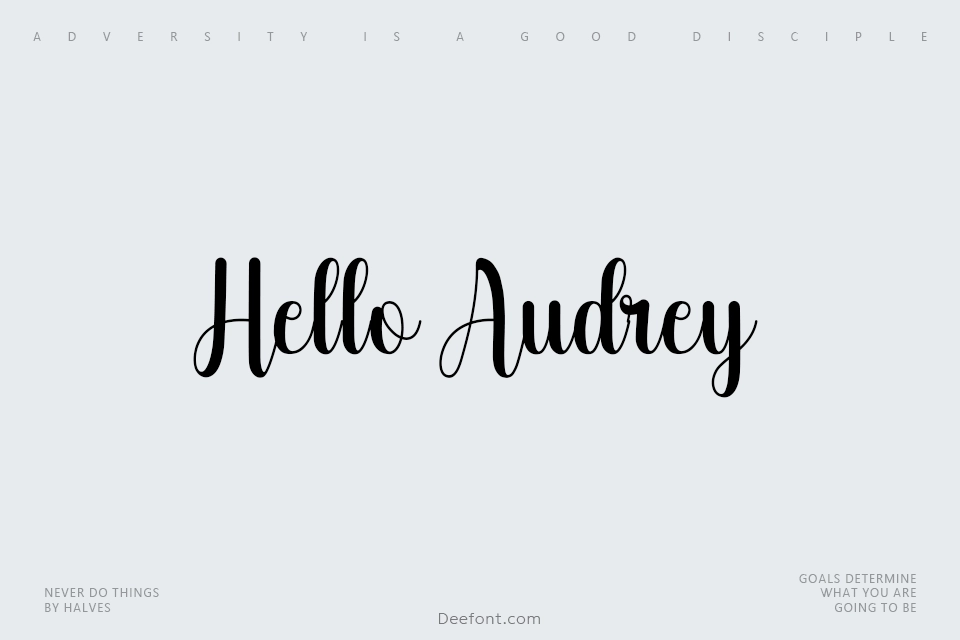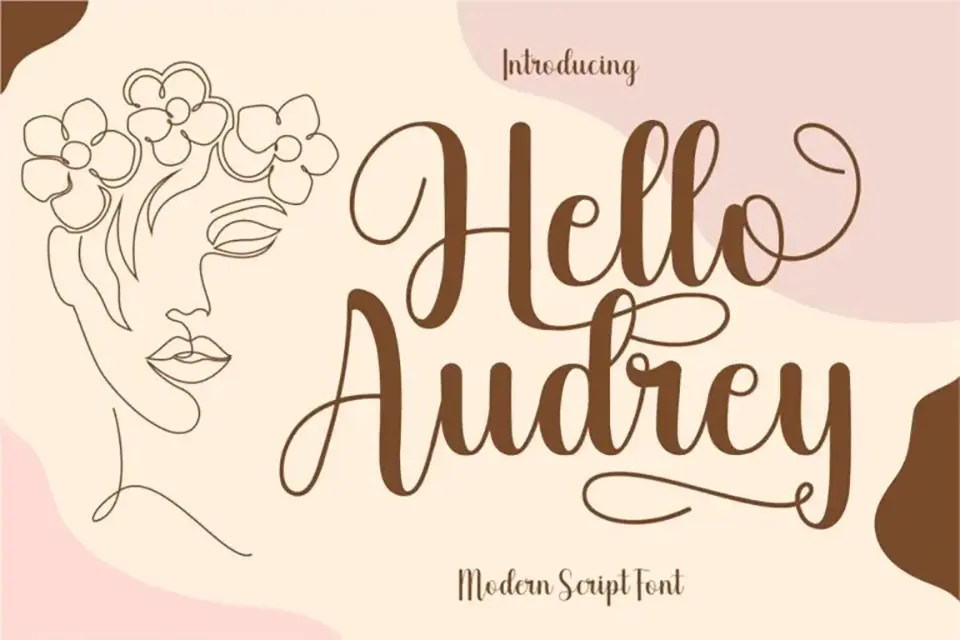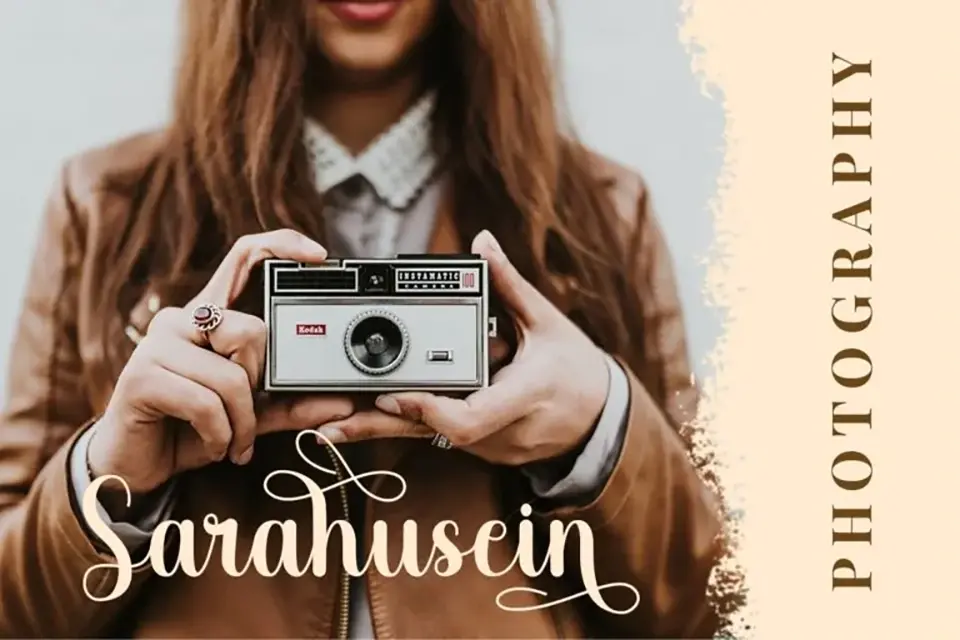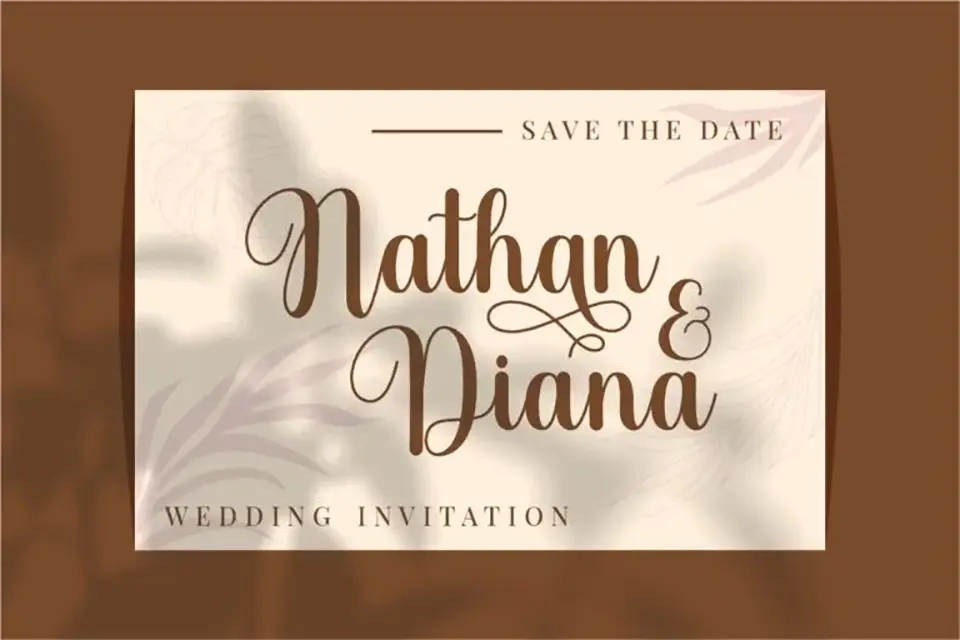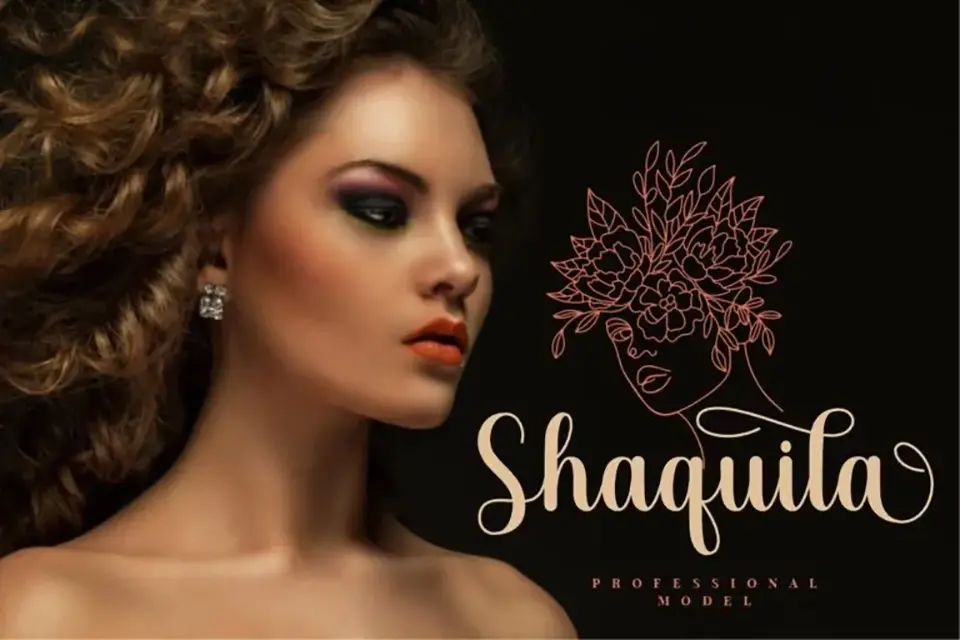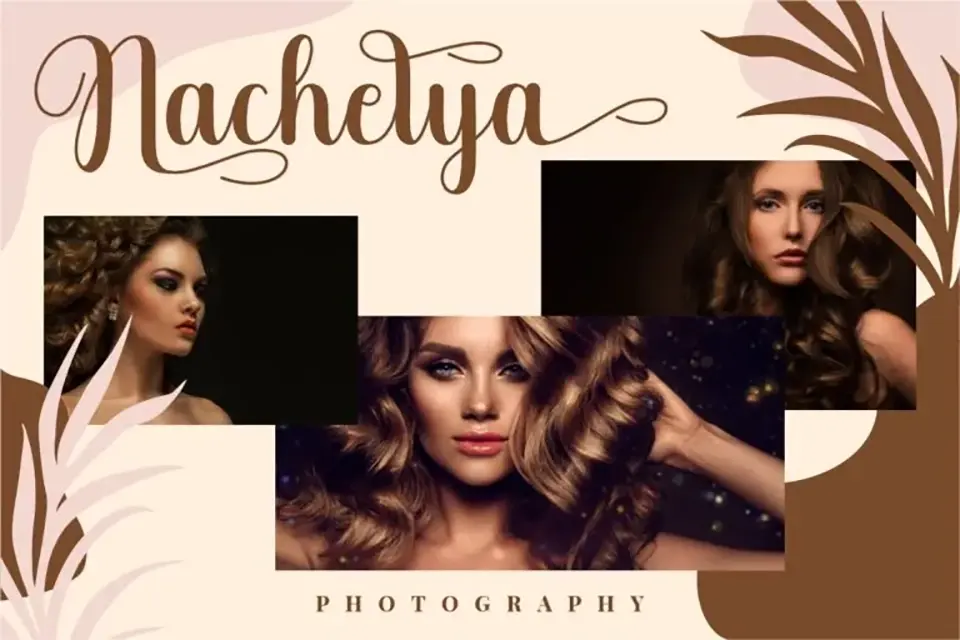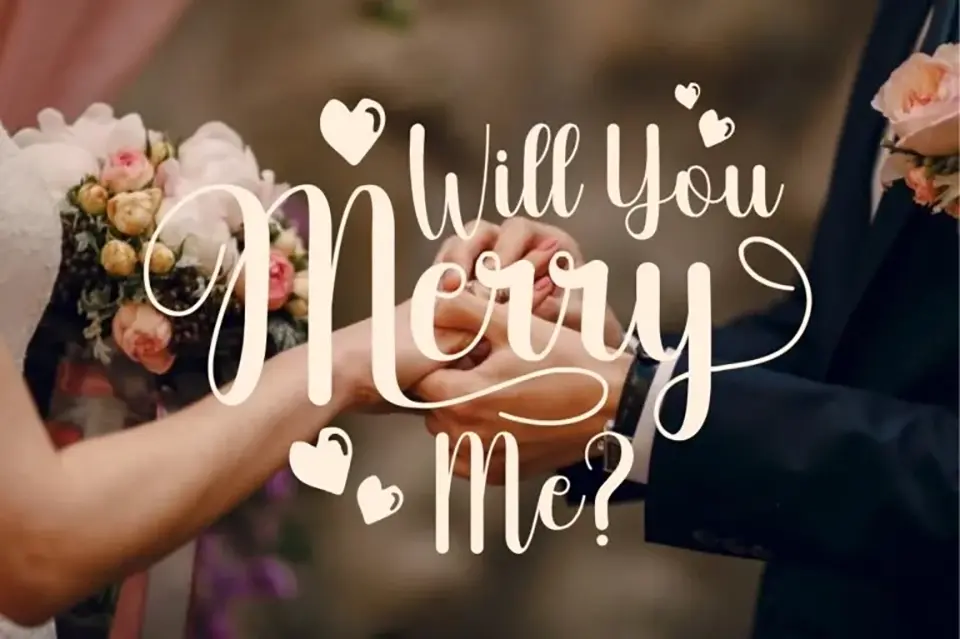
Hello Audrey Font
Hello Audrey is a modern and elegant script font designed for creative typography projects. This charming handwritten typeface combines femininity and sophistication, perfect for wedding invitations, greeting cards, branding, logos, and elegant packaging designs. With multiple alternates and multilanguage support, it adds a luxurious touch to any project requiring a handwritten aesthetic.